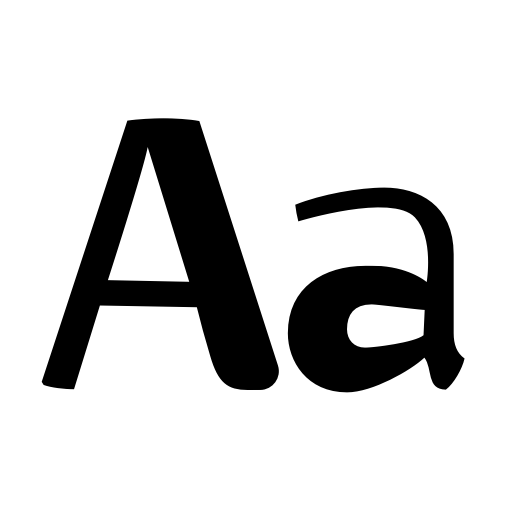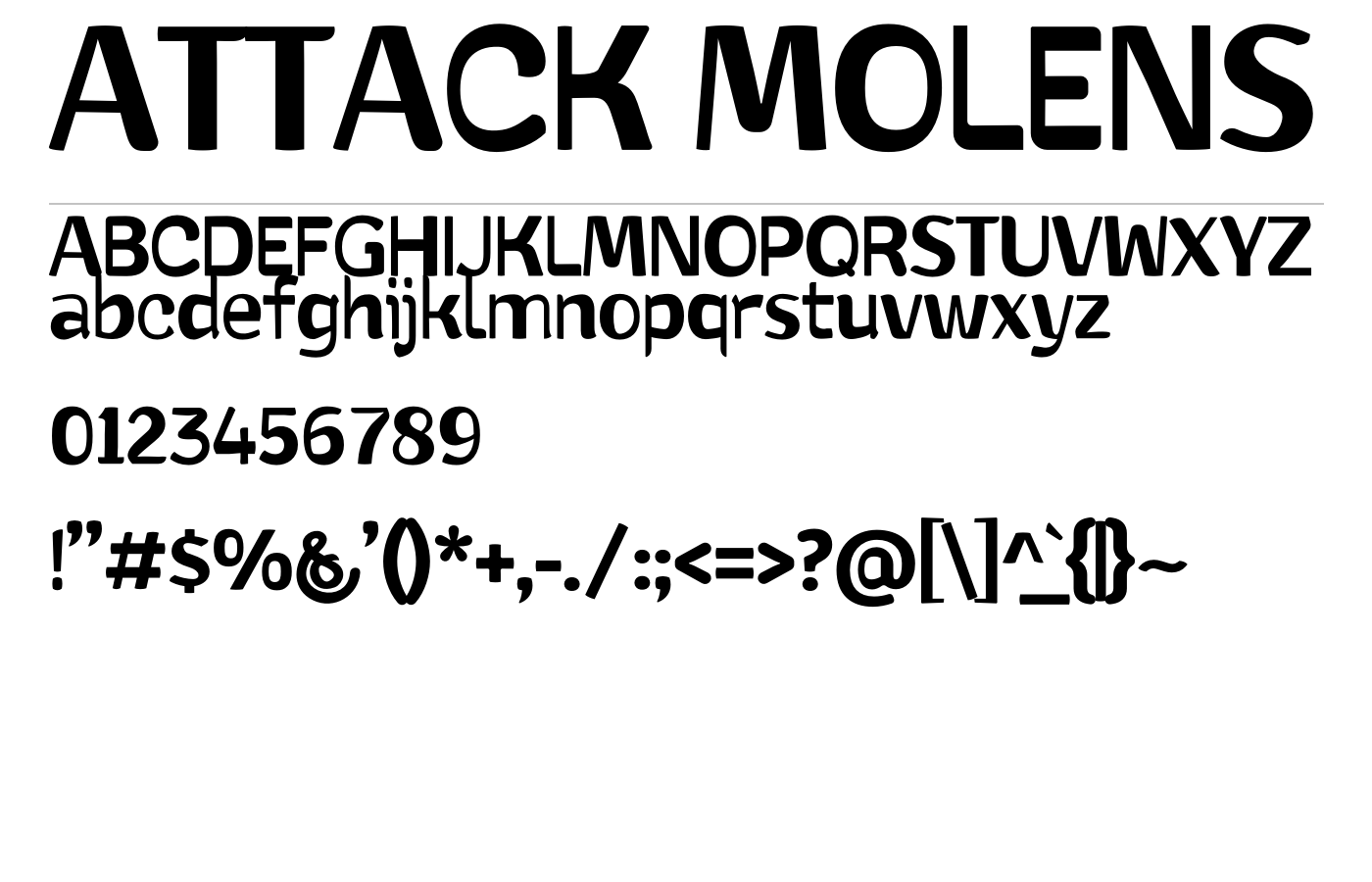
Attack Molens is a bold, sans serif font with a unique, slightly condensed style and a strong personality. Its uneven stroke widths and quirky letter shapes create a playful yet sturdy impression, making it ideal for eye-catching headlines and creative branding that wants to stand out with a modern, informal vibe. This font works well in projects that need a touch of character without losing readability, such as posters, logos, and editorial designs.
ATTACK MOLENS Font
About ATTACK MOLENS Font